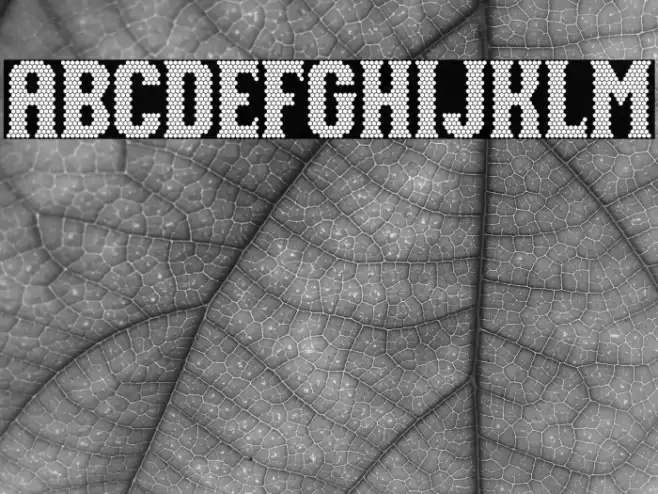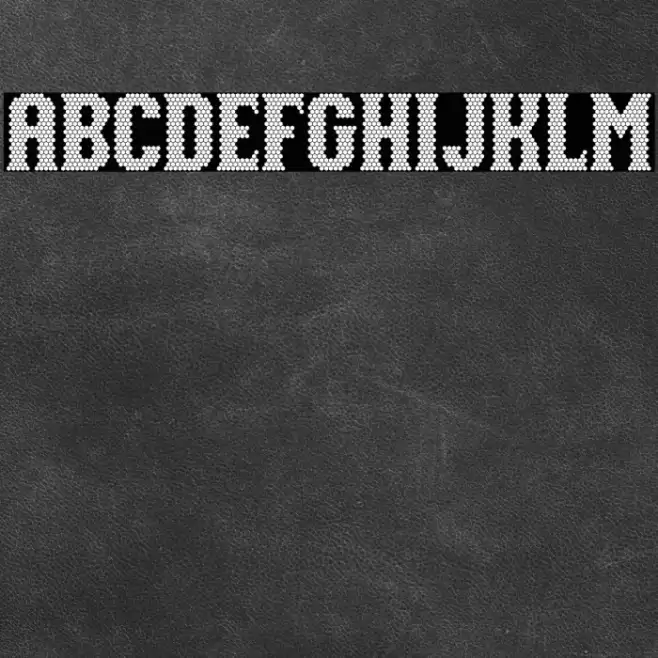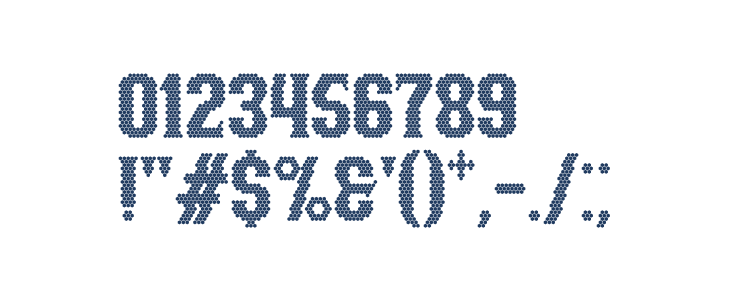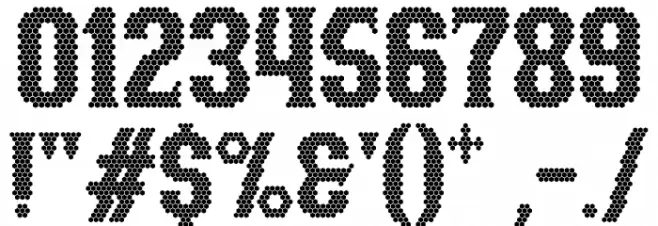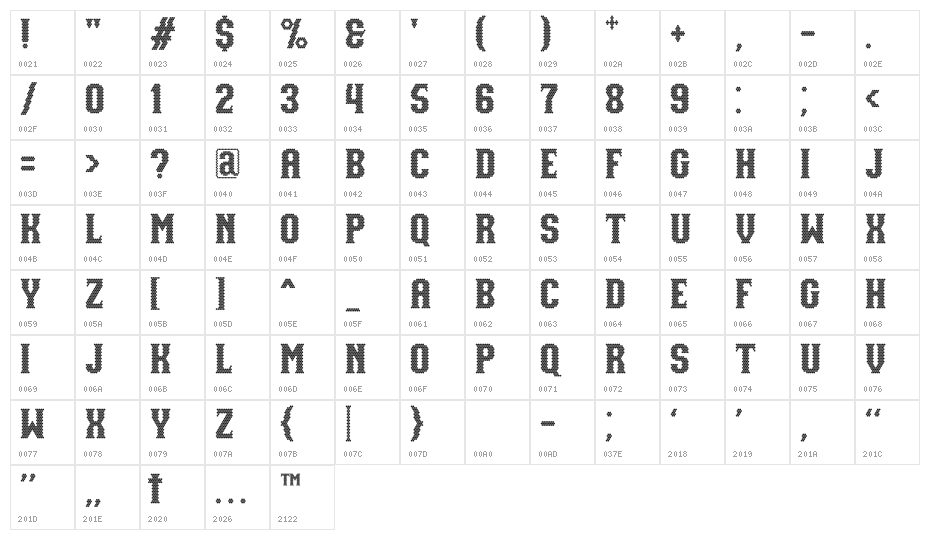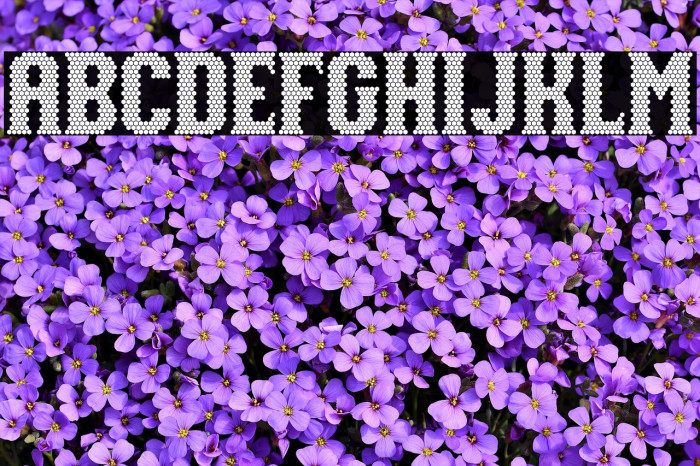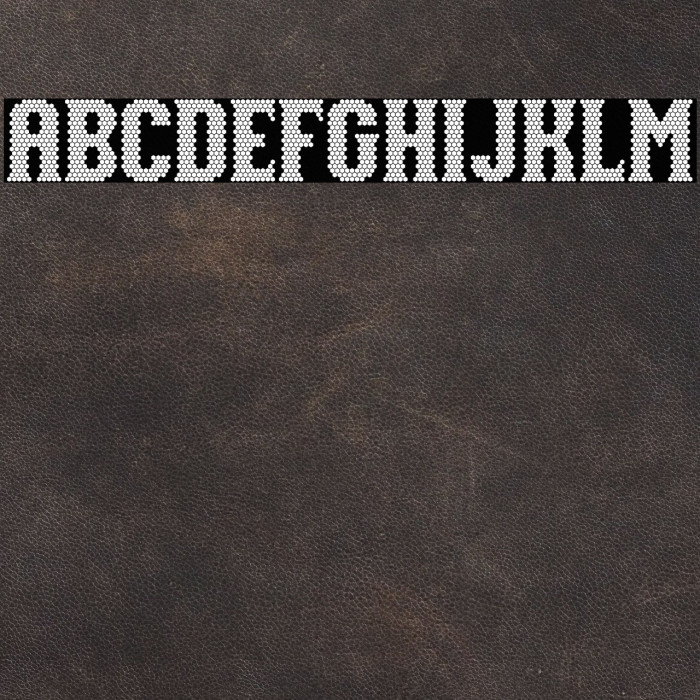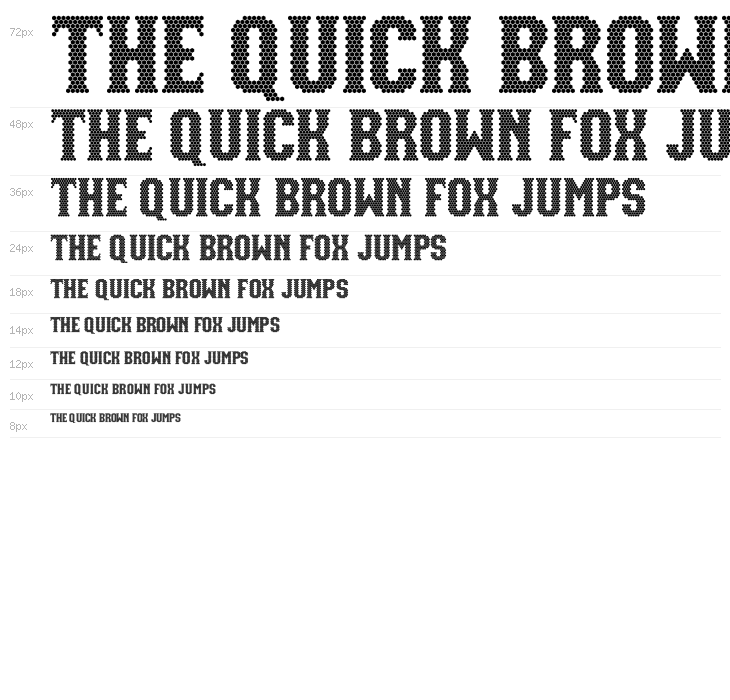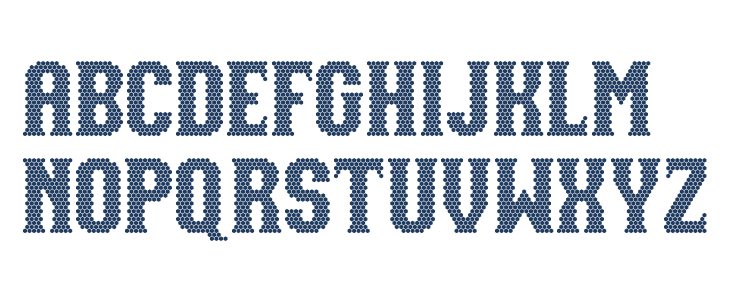
NUAZ Font
NUAZ Description
This font features a unique design composed of small, evenly spaced dots forming each character. The letters are bold and have a geometric, structured appearance, making them stand out with a distinct texture. The uppercase and lowercase letters maintain a consistent style, with the dots creating a uniform pattern across all characters. Numbers and special characters follow the same dotted design, ensuring a cohesive look. The font's playful yet structured aesthetic makes it ideal for creative and modern projects.
A bold, dotted font with a geometric and playful style from Decorative fonts.
- Proposed Projects: Ideal for posters, logos, and creative digital designs where a bold and unique appearance is desired.